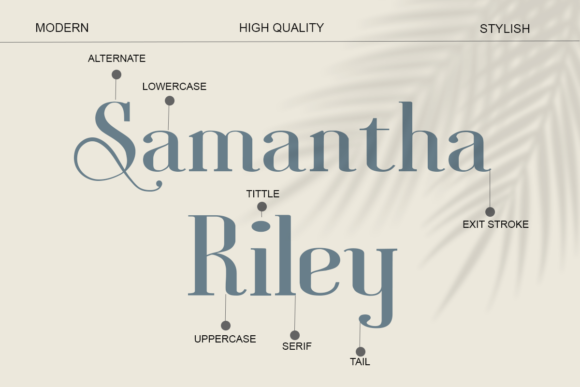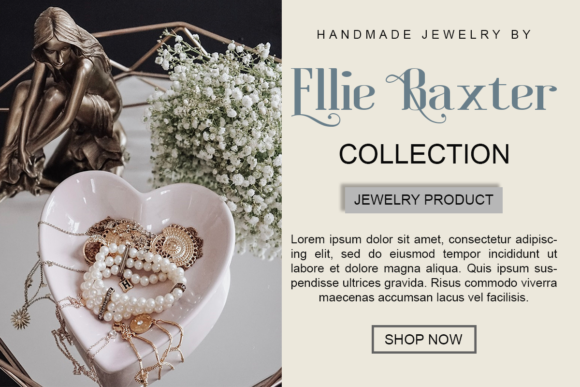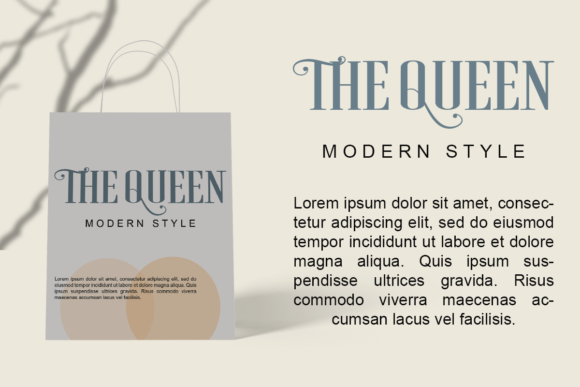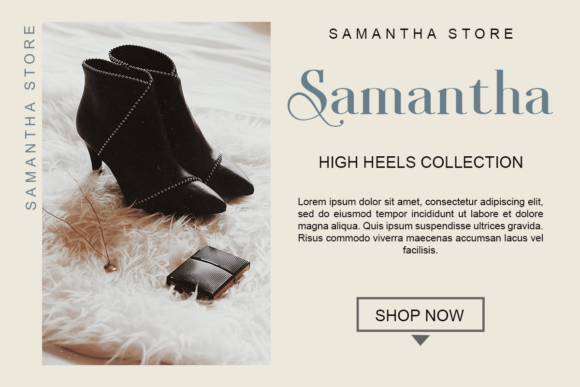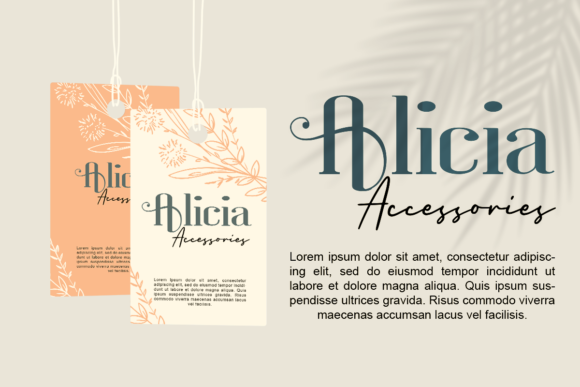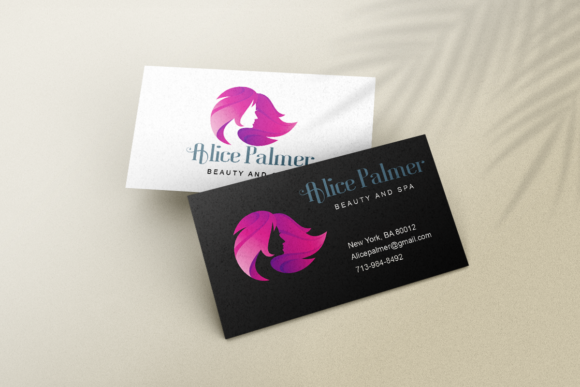
Introduction to Sannia Font
Have you ever stared at a blank page, trying to find the perfect font to bring your creative project to life? It’s a moment we’ve all experienced as designers, where the right typeface can make all the difference between a good design and a great one. That’s where the Sannia Font comes in – a modern, classy serif typeface that’s sure to elevate your work.
With its sleek, sophisticated design and multilingual features, the Sannia Font is the perfect addition to any designer’s toolkit. Whether you’re working on a brand logo, invitation, or greeting card, this high-quality font is sure to impress. And with its PUA encoded features, you’ll have access to all the glyphs and swashes you need to create a truly unique design.
Key Features of Sannia Font
- High-quality, elegant design ideal for creative projects and design resources.
- Transparent background allows for seamless integration with various backgrounds.
- Comes in a range of 6 styles and 12 weights, offering versatility for diverse design needs.
- Designed with a modern, sophisticated aesthetic, making it perfect for high-end creative projects.
- Perfect for use in graphic design, branding, and digital art, thanks to its unique characteristics and high-quality design.
Honest Review: Sannia Font
As a designer, I’m always on the lookout for high-quality design resources that can elevate my creative projects. The Sannia Font has caught my attention, and I’m excited to share my honest review.
- ✨ High-quality typography: The Sannia Font features a beautiful, modern design that’s perfect for creative projects.
- ✨ Transparent background: The font’s transparent background allows for seamless integration with other design elements.
- ⚠️ Limited font sizes: The font only comes in a limited range of sizes, which may not be suitable for all design projects.
- ⚠️ Limited language support: The font may not support all languages, which could be a limitation for designers working on international projects.
Overall, I’m impressed with the Sannia Font’s high-quality typography and transparent background. While it has some limitations, it’s an excellent choice for designers looking for a free, high-quality design resource for their creative projects.
Tips for Getting the Most Out of Sannia Font
To get the most out of the Sannia Font, experiment with different font sizes, colors, and combinations. Use the font’s high quality to create intricate designs and graphics. Don’t forget to pair the font with other design resources to create a cohesive look.
The Sannia Font is perfect for a variety of creative projects, including graphic design, social media, and presentations. Use the font to create eye-catching graphics, logos, and branding materials.
Alternatives to Sannia Font
Great Vibes Font is a beautiful, elegant script font perfect for creative projects that require a high level of sophistication. It features a transparent background and can be used for a variety of purposes, from wedding invitations to business cards. Great Vibes Font is available for free download and is a popular choice among designers.
Comparison to Sannia Font: While Sannia Font has a more rustic feel, Great Vibes Font is more refined and elegant. Great Vibes Font is ideal for projects that require a touch of luxury and sophistication, while Sannia Font is better suited for more casual, creative projects.